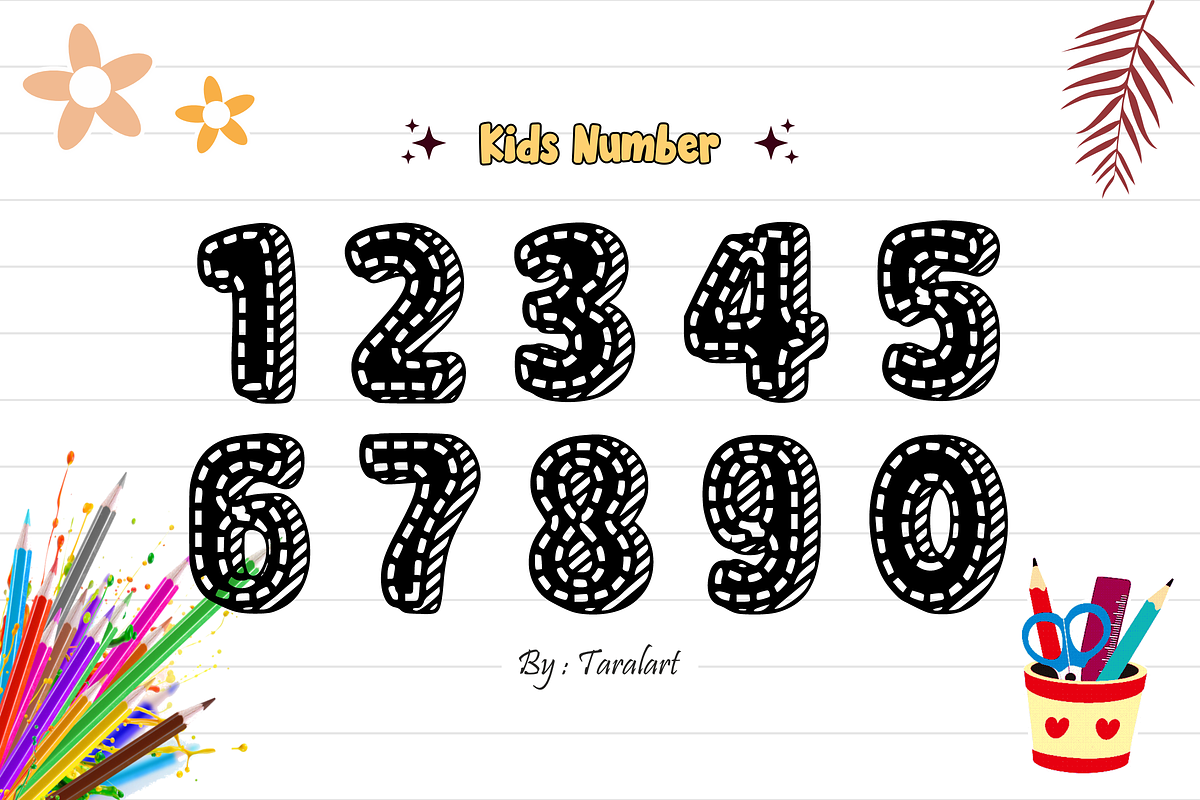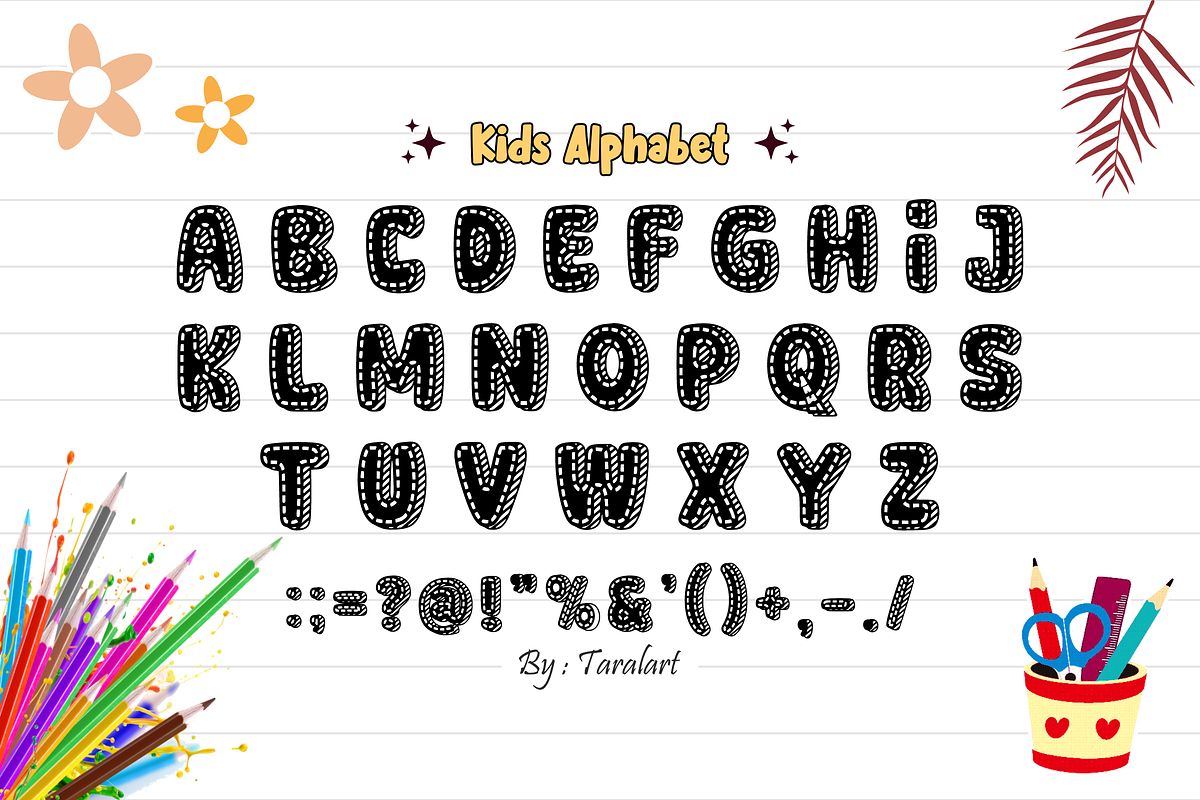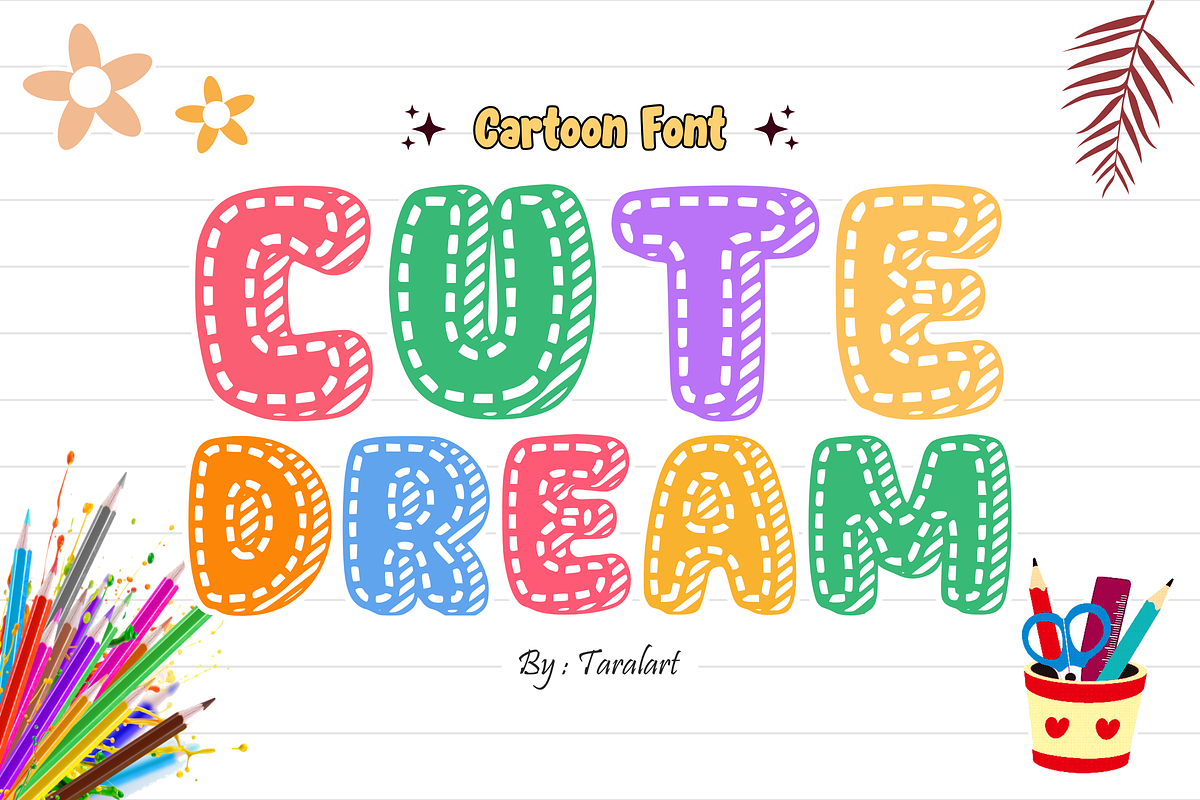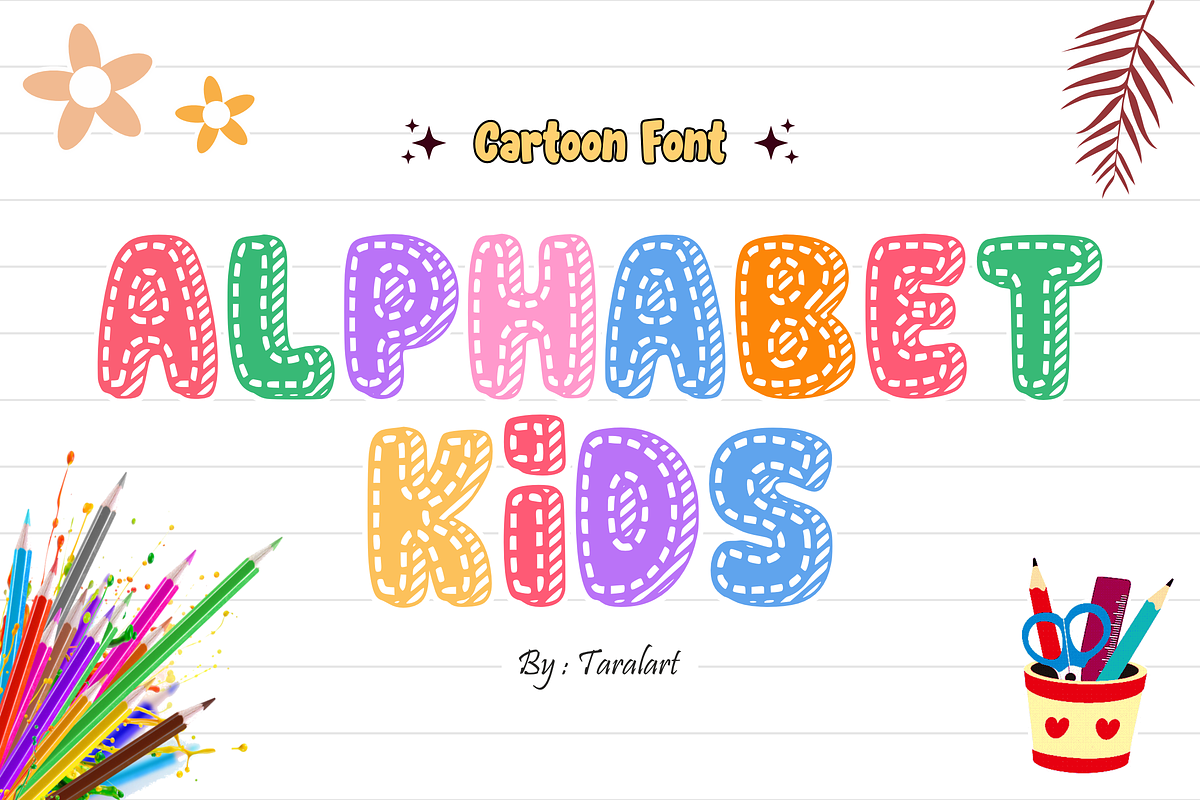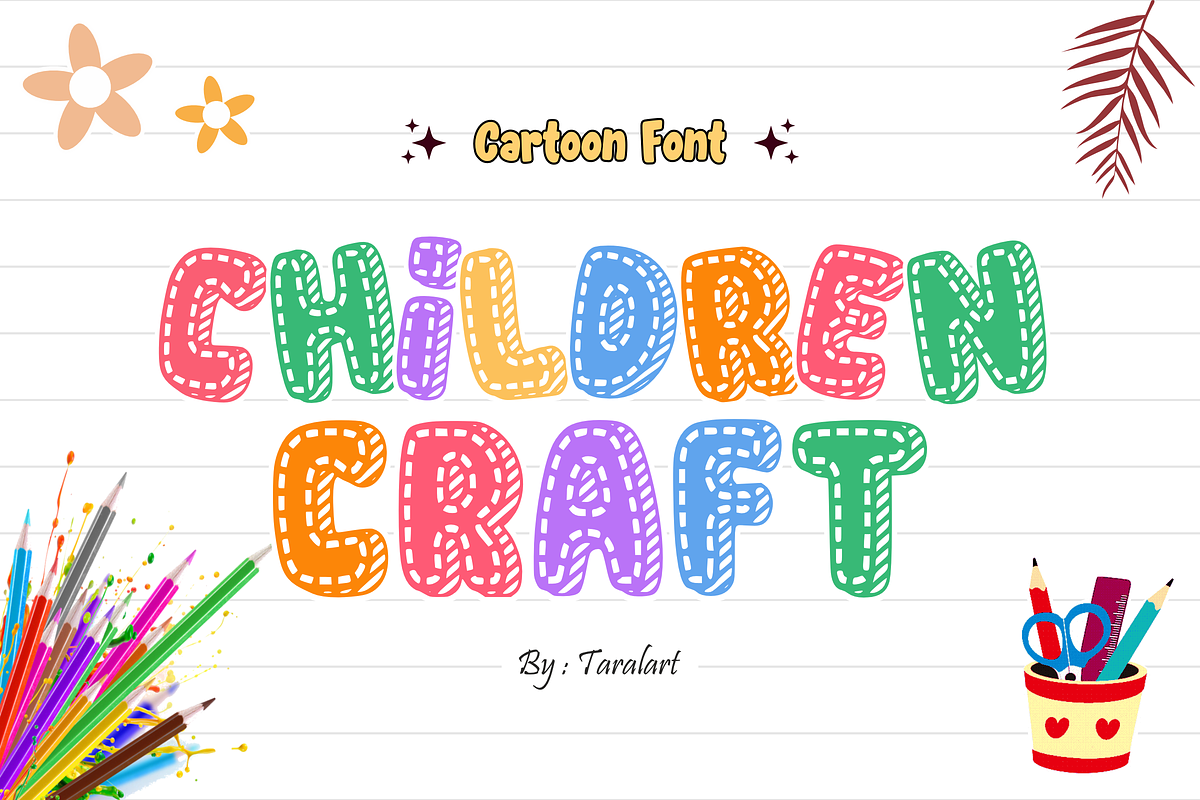
CUTE DREAM - Playful Stitched Font
CUTE DREAM - Playful Stitched Cartoon Font
Step into a dreamy world of crafting and creativity with Cute Dream! This ultra-fun display font features chunky, bubbly letterforms decorated with a unique inner stitched outline and whimsical hand-drawn textures. It’s the ultimate typeface to make your titles look incredibly cozy, friendly, and eye-catching.
Perfect for school materials, teacher resources, and trend-focused crafting, Cute Dream masterfully pairs a playful hand-made aesthetic with excellent legibility. It is highly versatile, deeply expressive, and fully optimized for flawless performance across premium digital cutting tools and professional print setups.
All-Caps Character Set (Chunky, happy stitched uppercase letters)
Numbers & Basic Punctuation (Essential, simple symbols included)
Teacher Resources, Educational Printables, & Classroom Decor 🎒
Cricut, Silhouette, & DIY Kid-Friendly Craft Sublimation Projects ✂️
Children’s Book Covers, Kindergarten Banners, & Storybook Titles 📚
Kids' Product Packaging, Toy Labels, & Birthday Party Themes 🎈
Custom Die-Cut Stickers, Fun Planner Graphics, & Youth Apparel Prints 👕